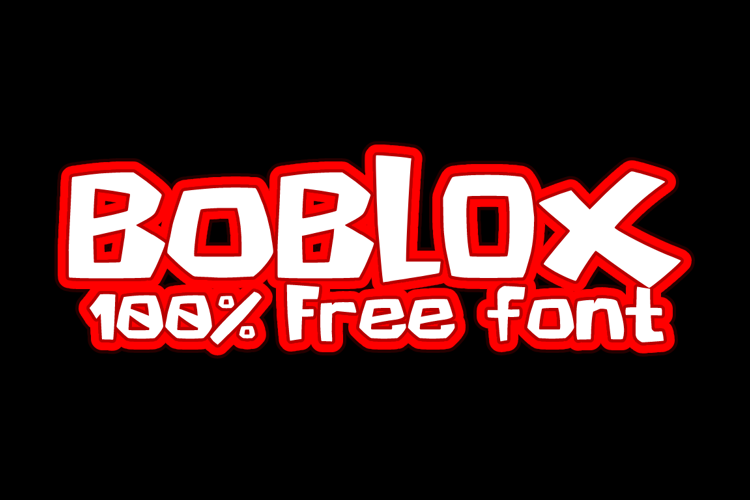
Boblox Classic Font
There has never been a good Roblox font that had been made to resemble the 2015 one, not until now.
100% Free for use font with polish support and many glyphs.
yo heres the O that has the line on it "ō" no need for lowercase cause the normal roblox line O is lowercased
then just put it in then boom O with line